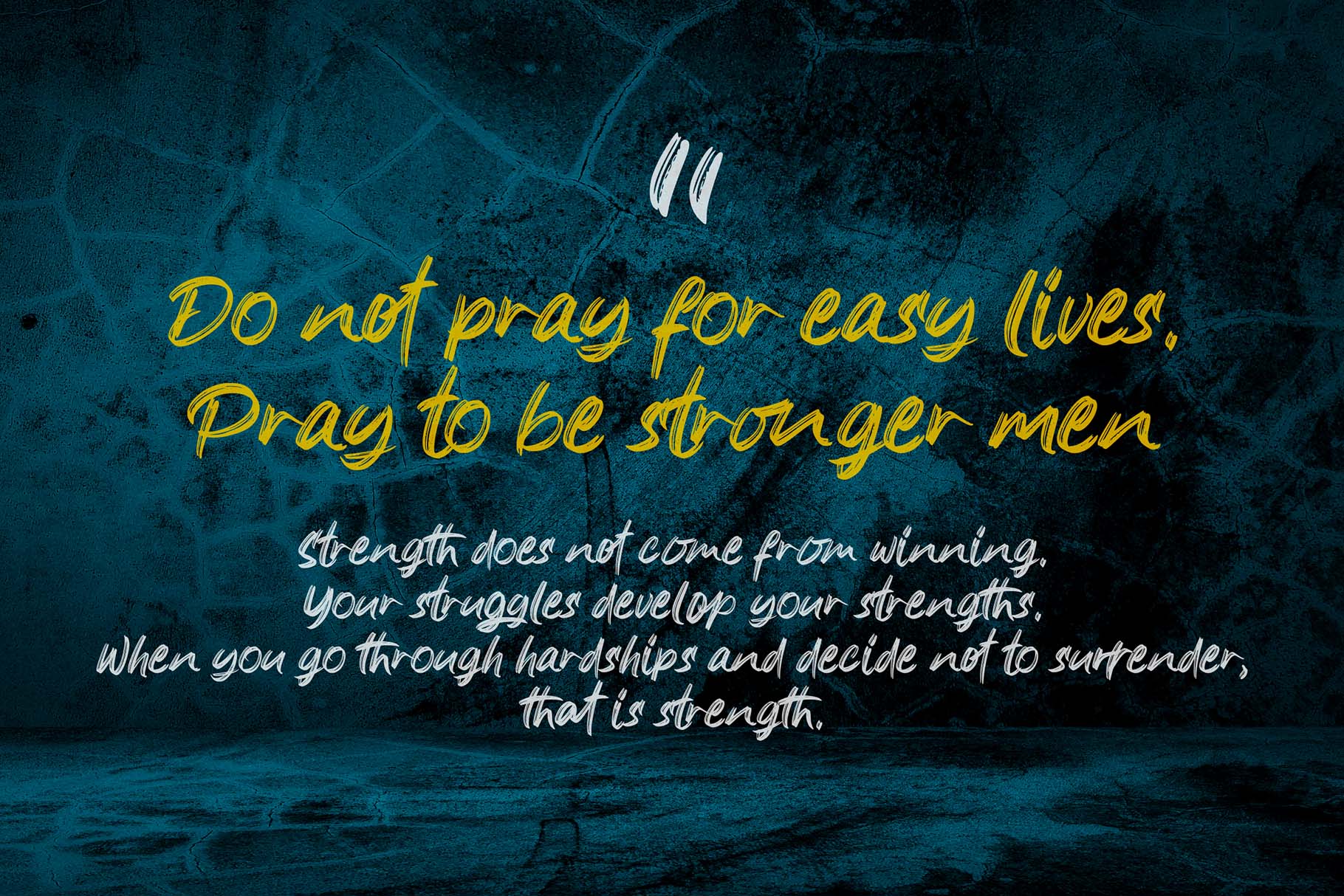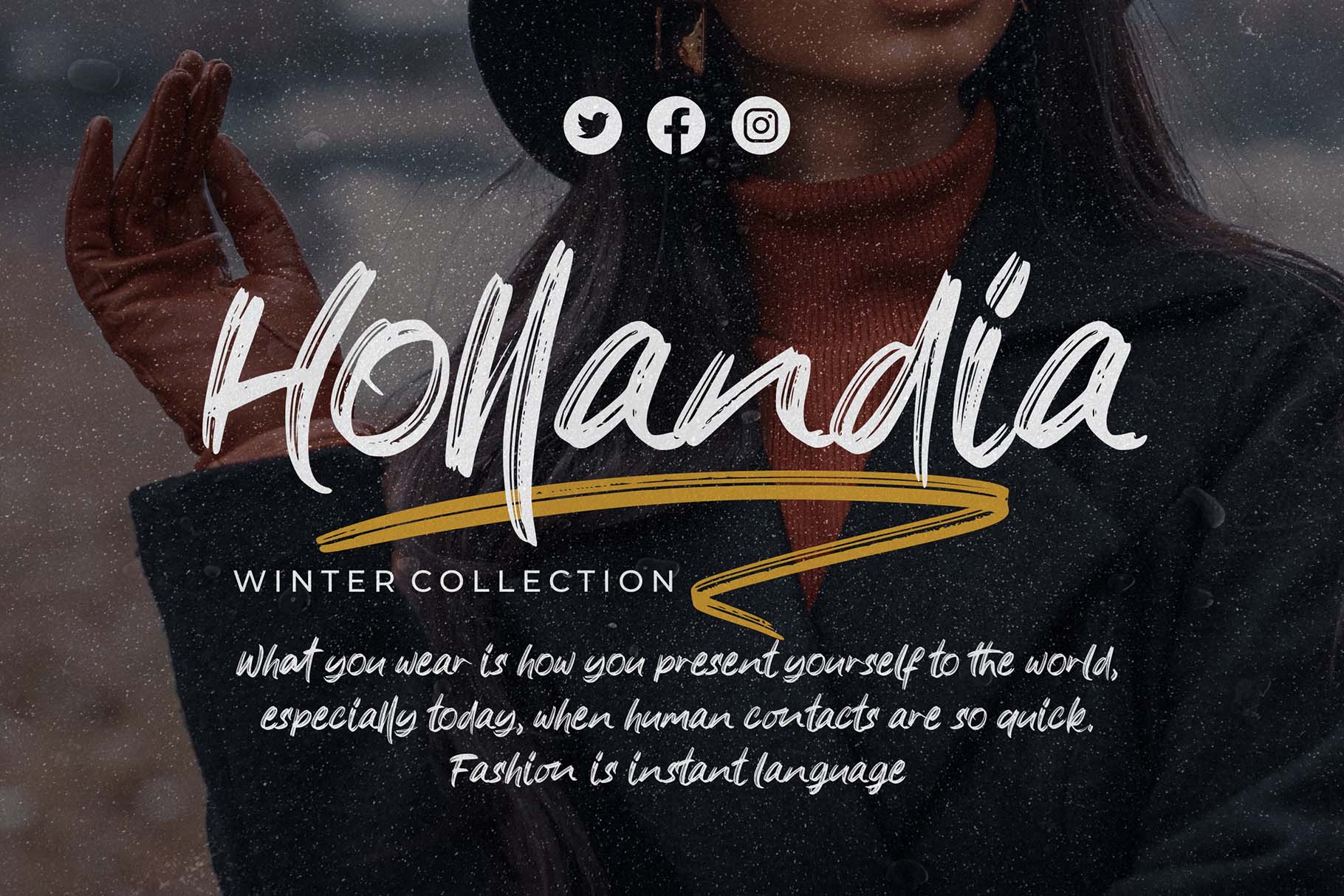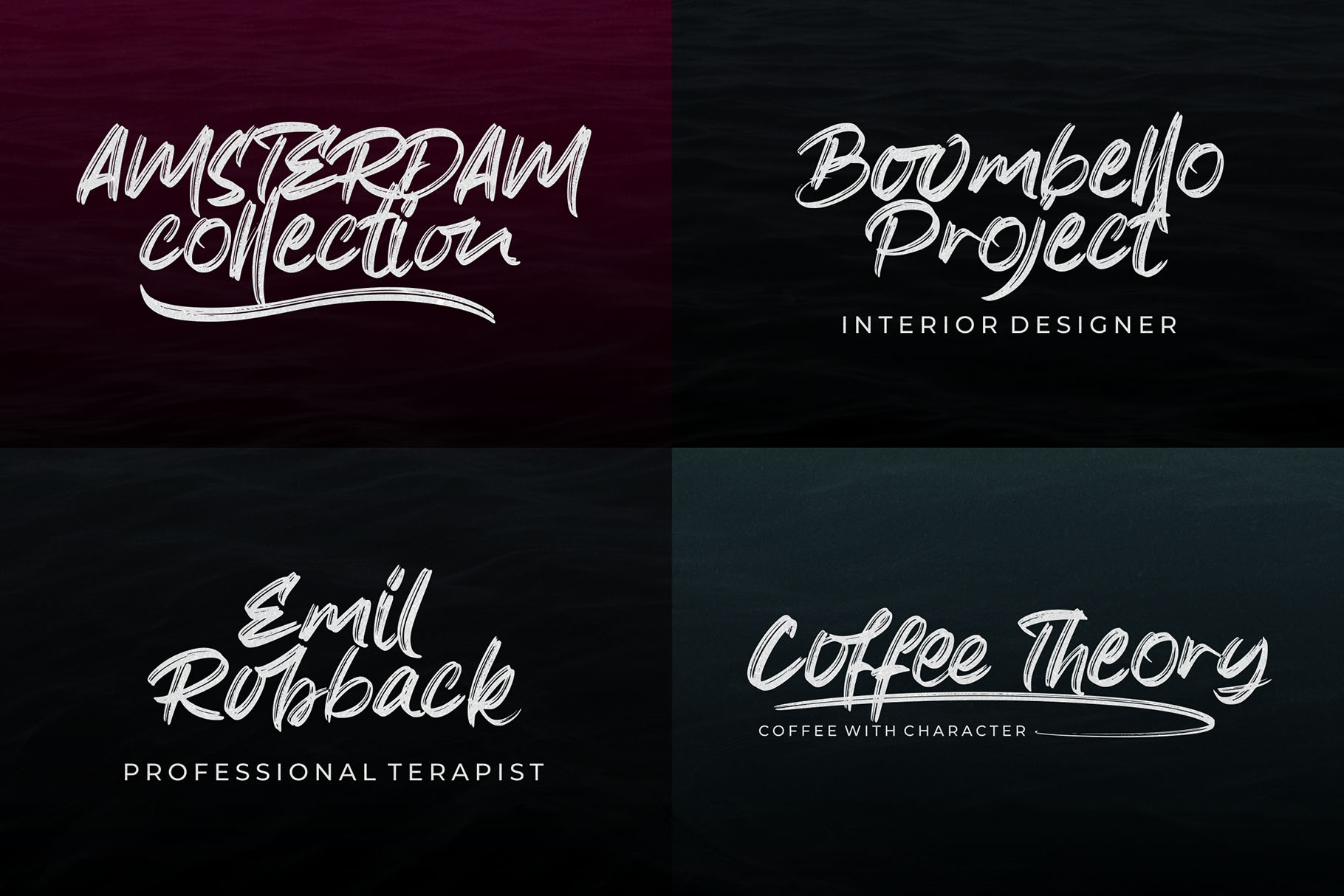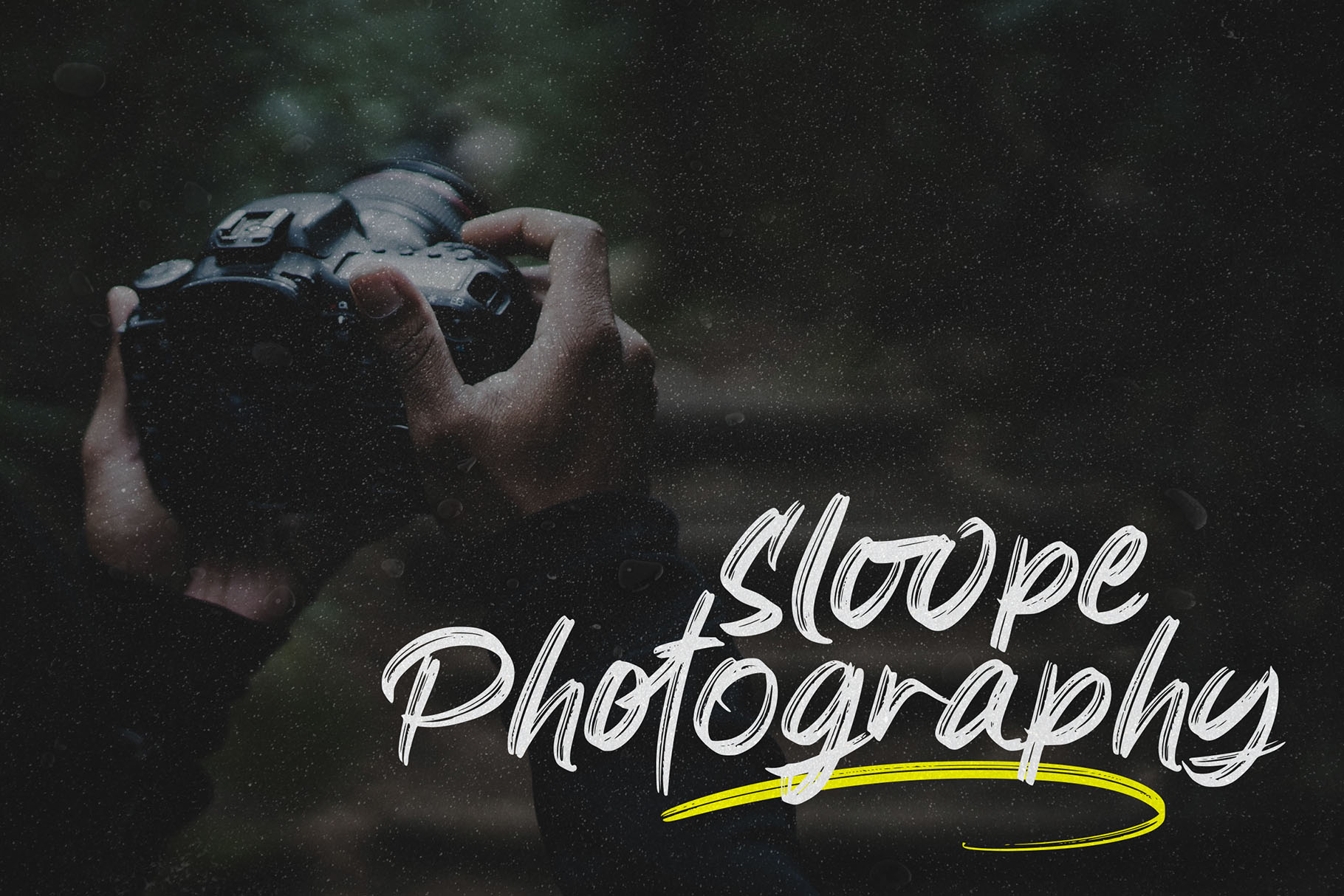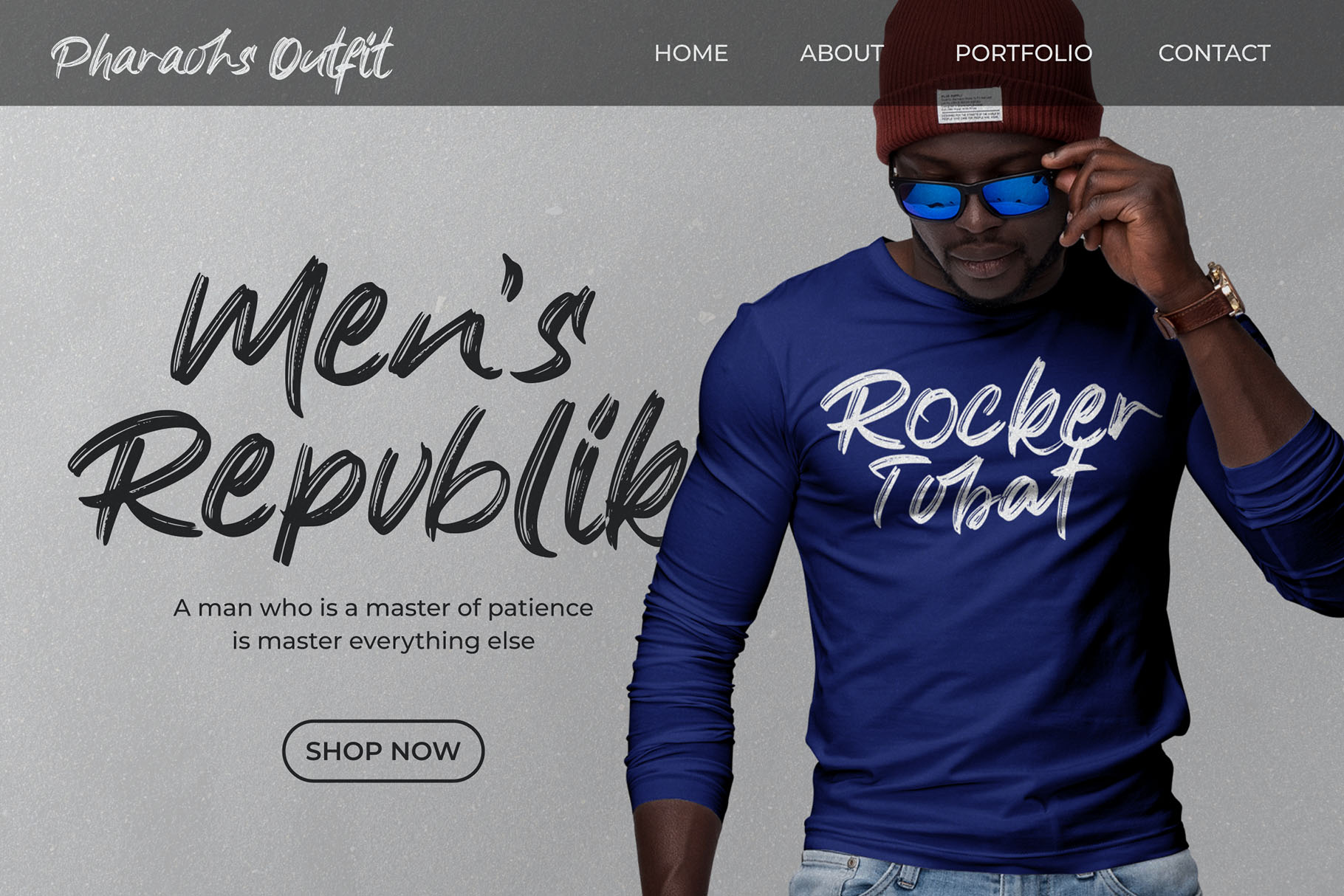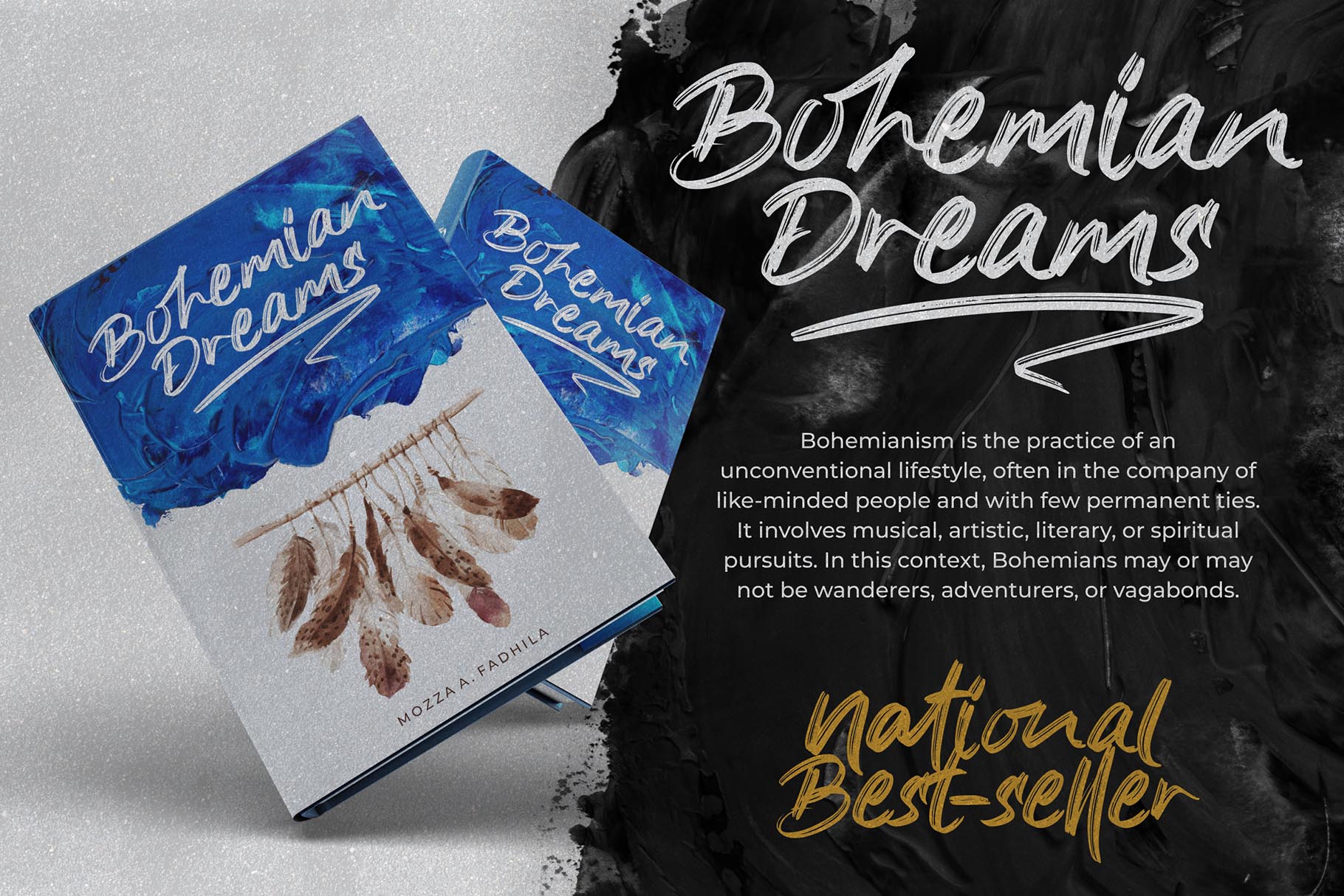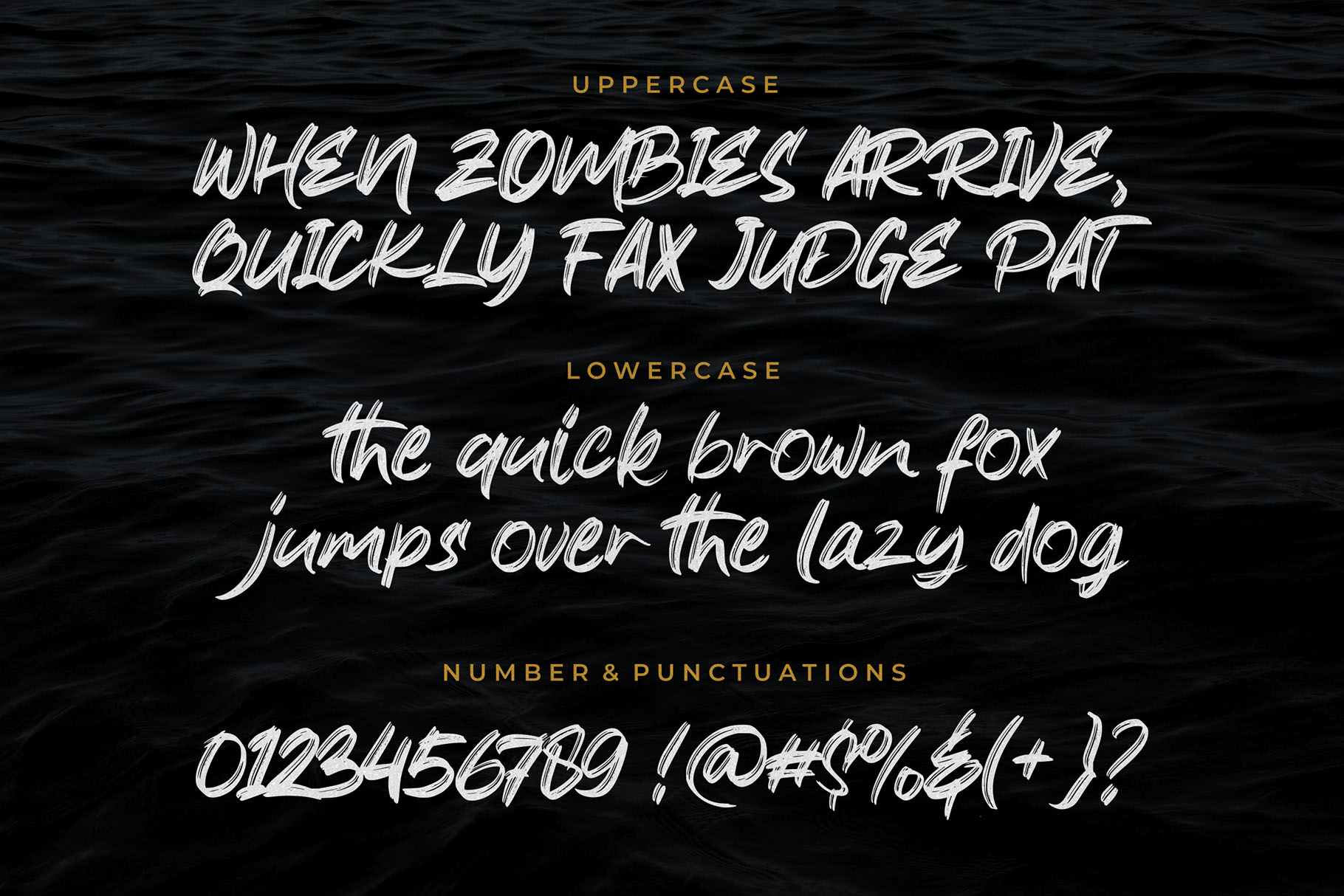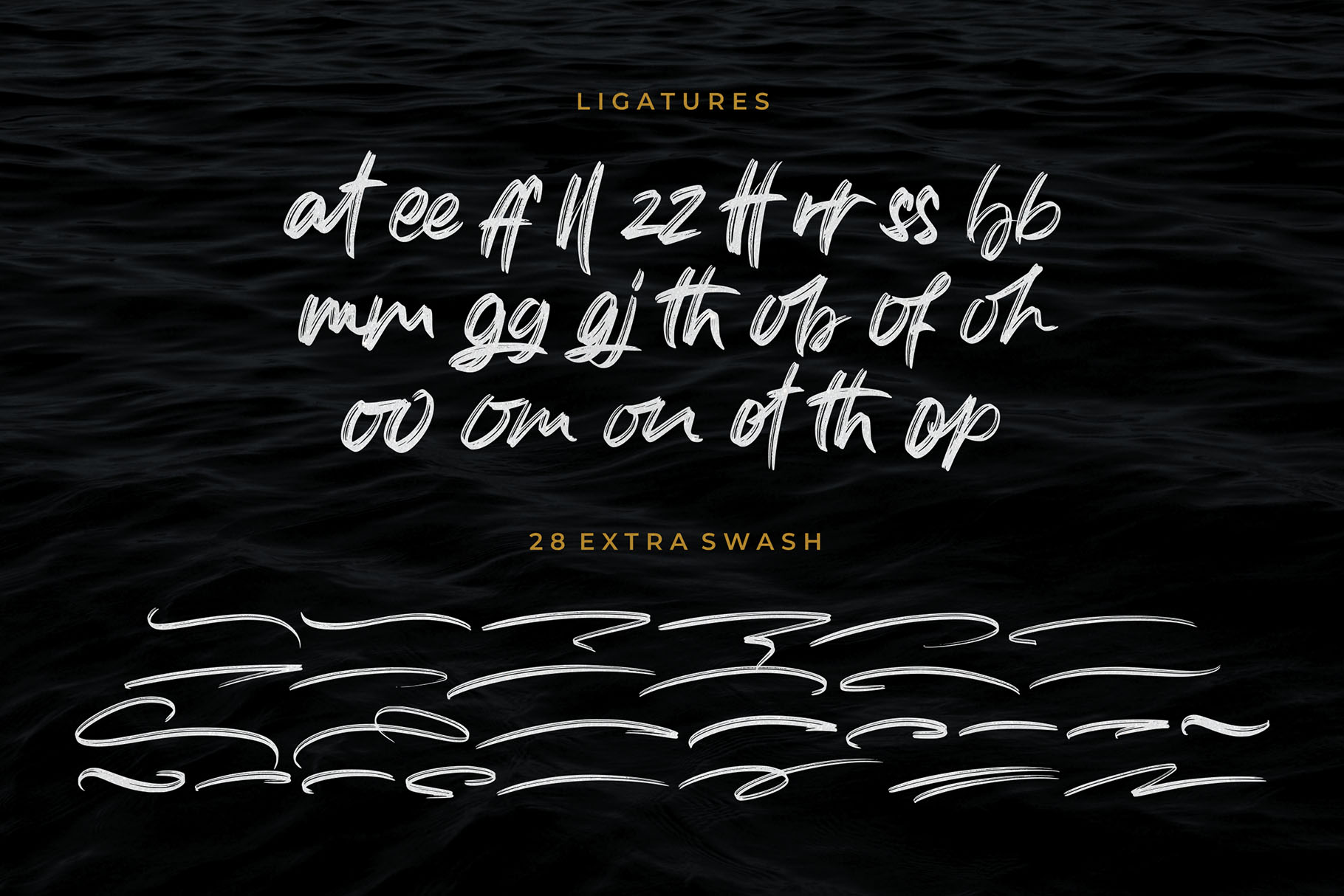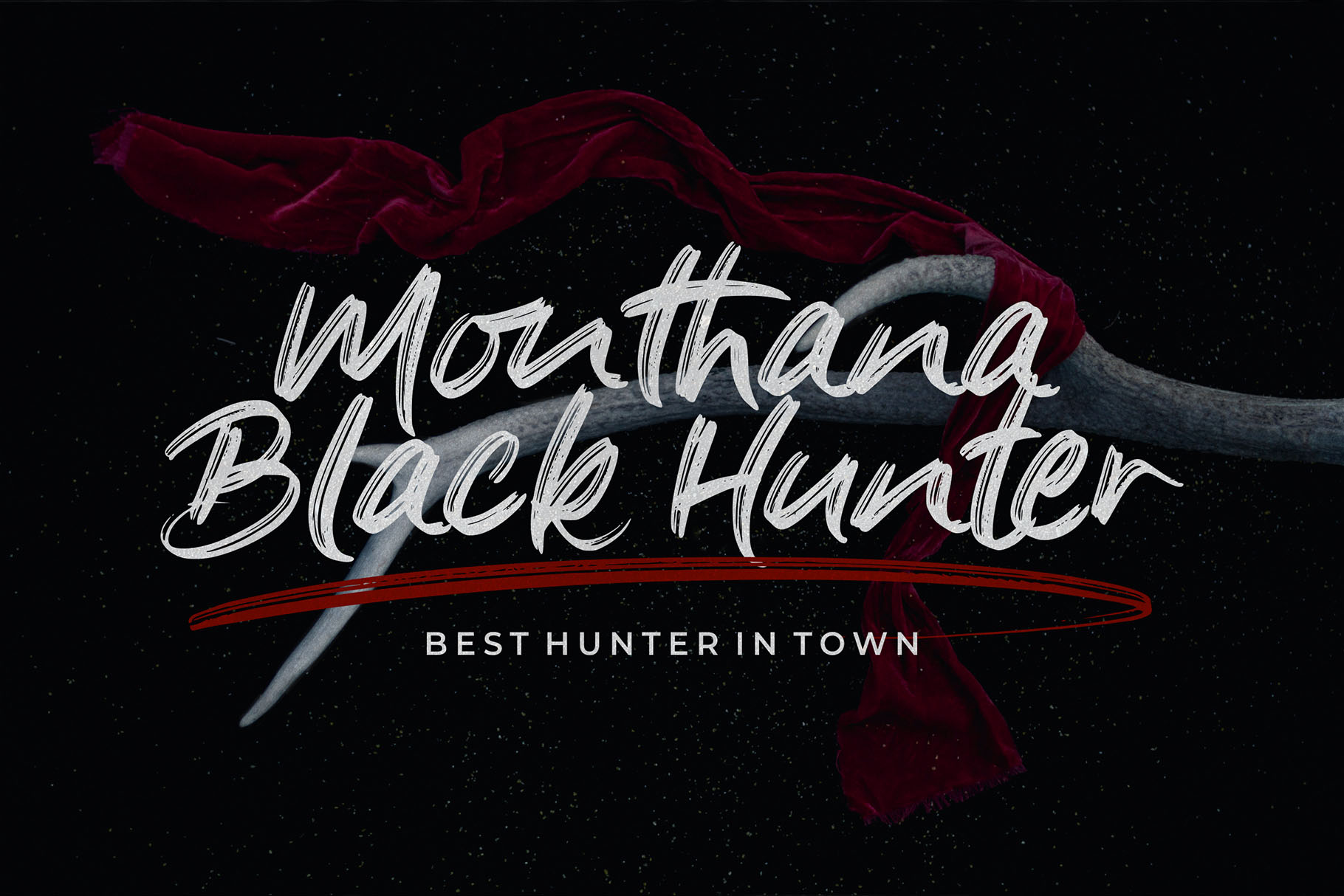
The Brother Hoops
Introducing The Brother Hoops!
The Brother Hoops is strong hand-drawn brush font that combines attractive curves with a fresh urban edge; delivering a stylish brush font that is guaranteed to add an eye-catching appeal to your logo designs, brand imagery, handwritten quotes, product packaging, merchandise, social media post, or website font.
• Basic Latin A-Z and a-z
• Numbers
• Symbols
• Ligature and Swash
• Multilanguage Support